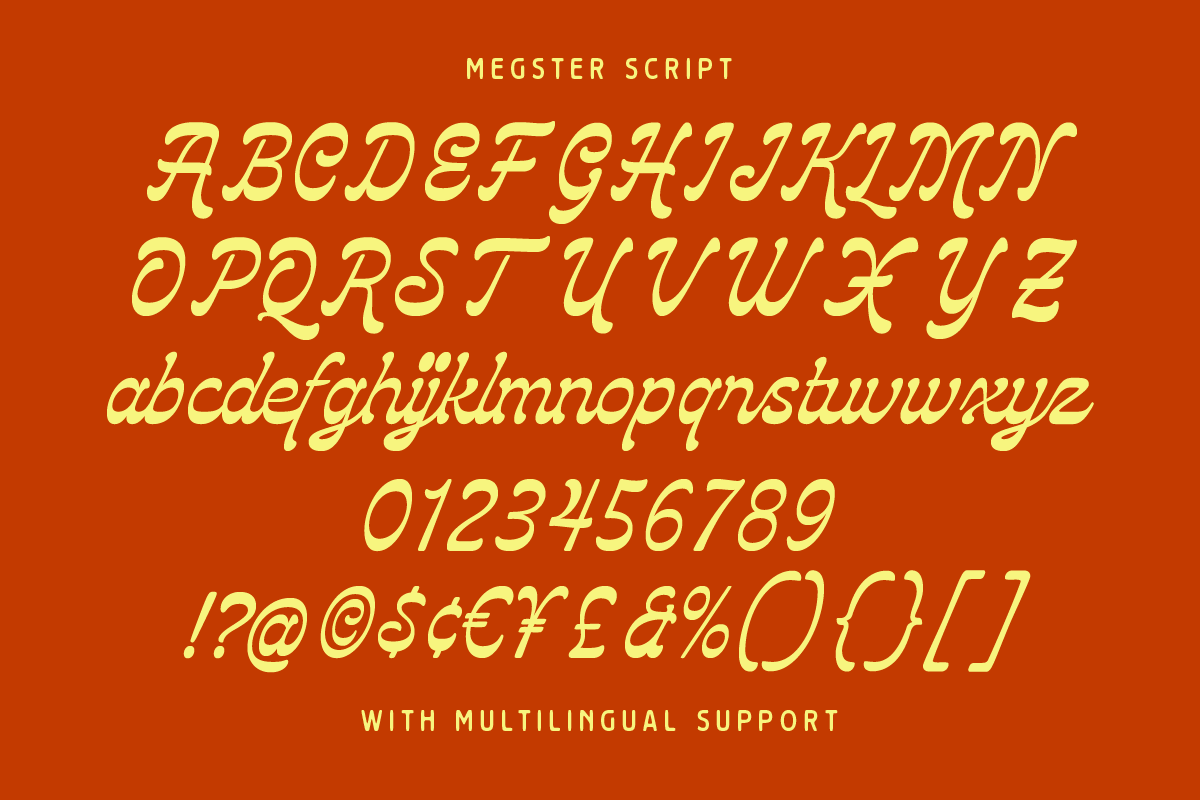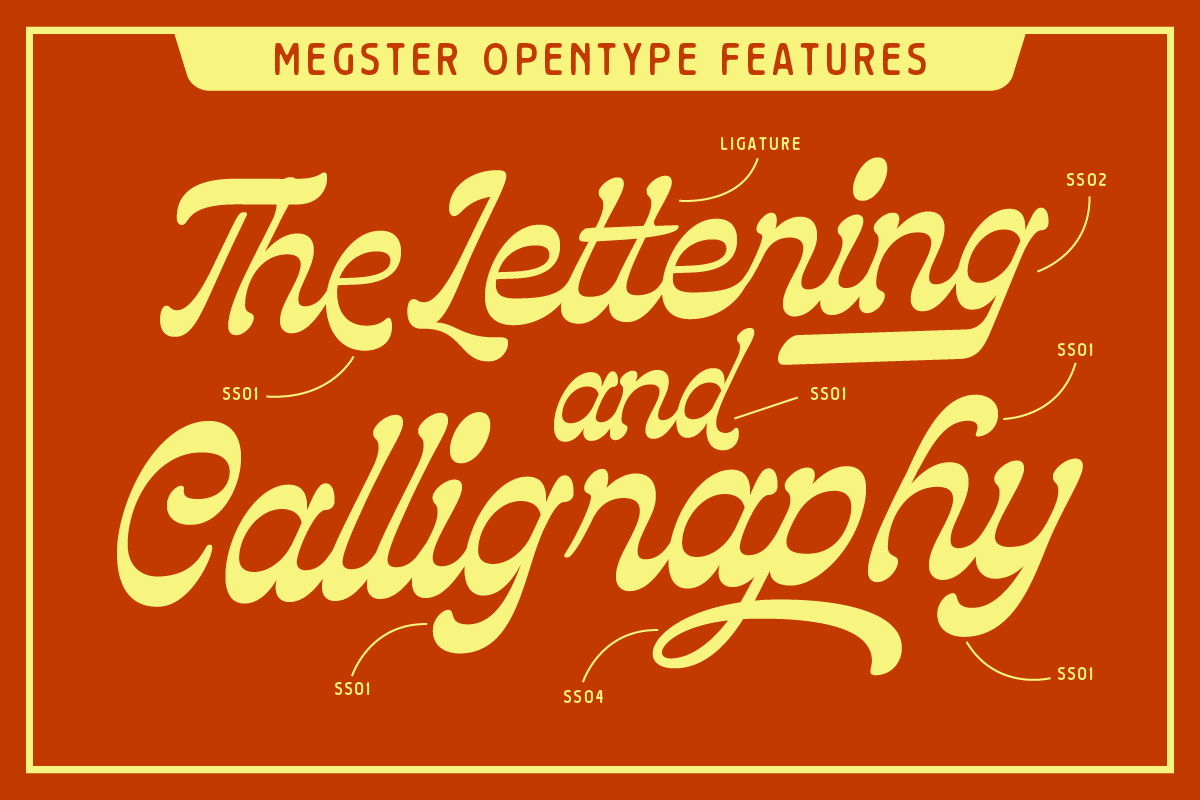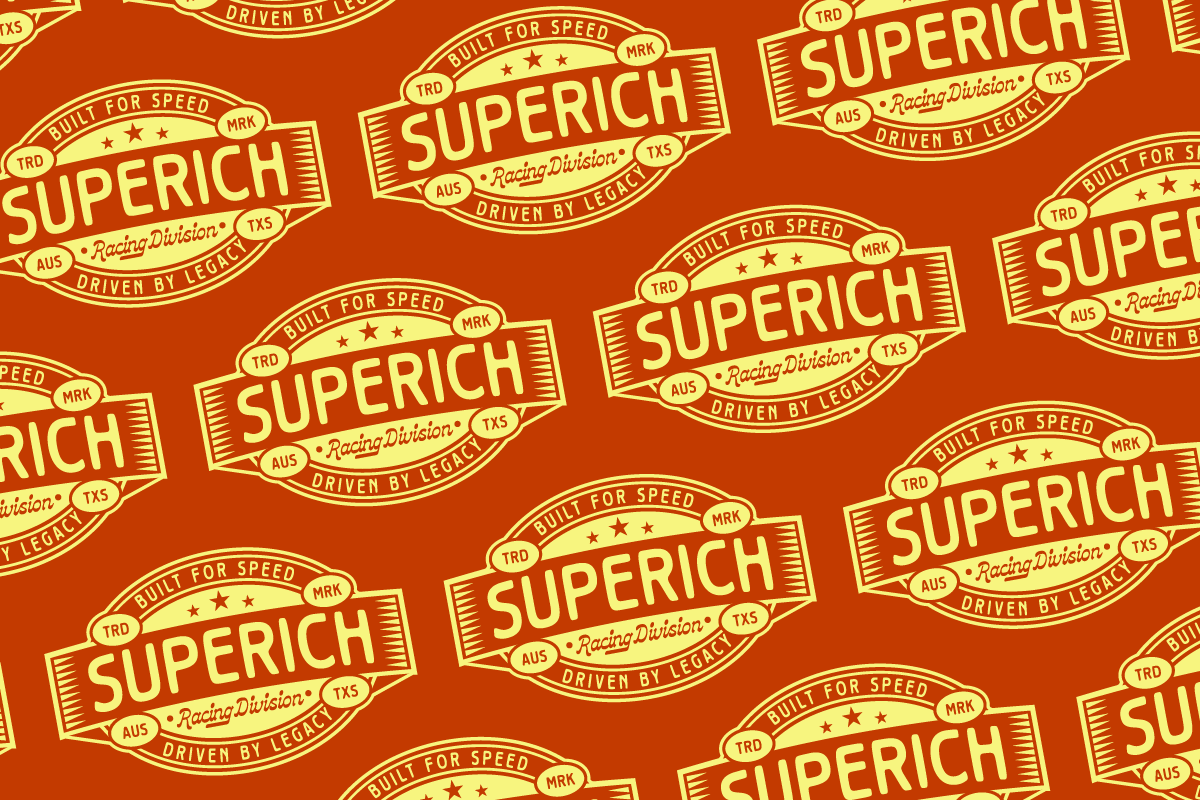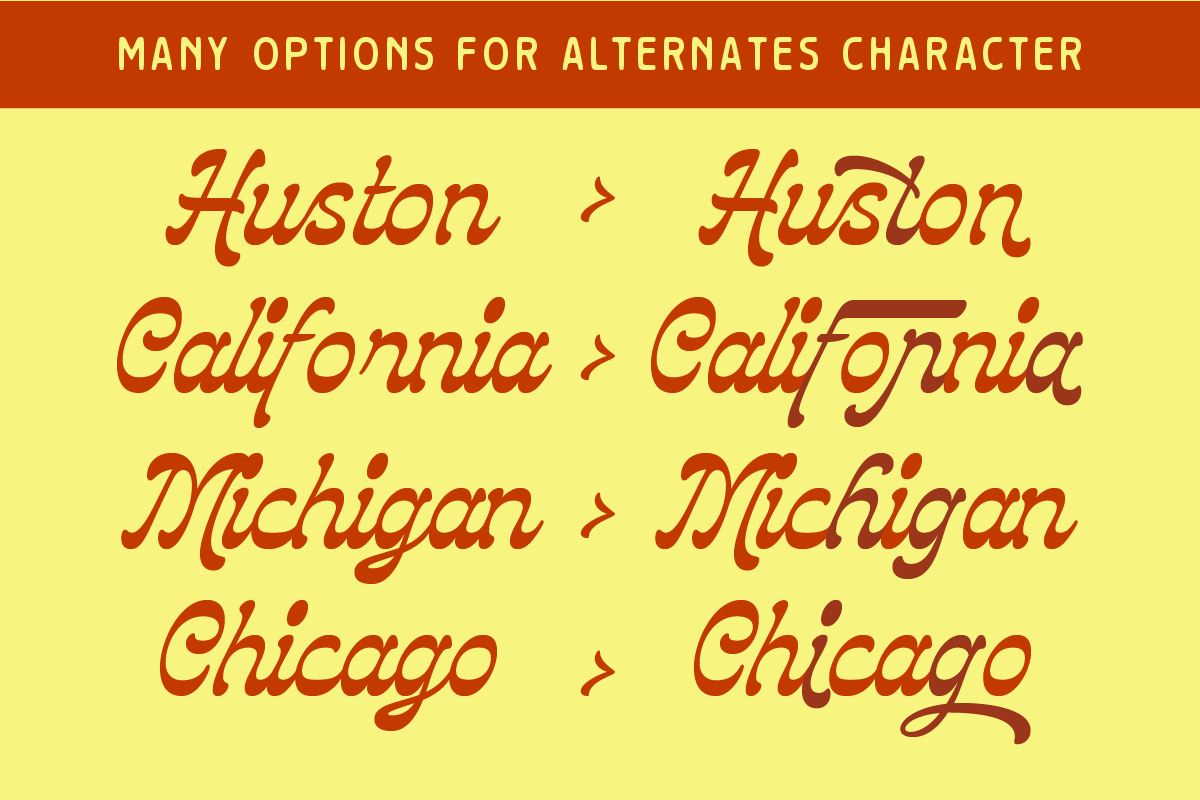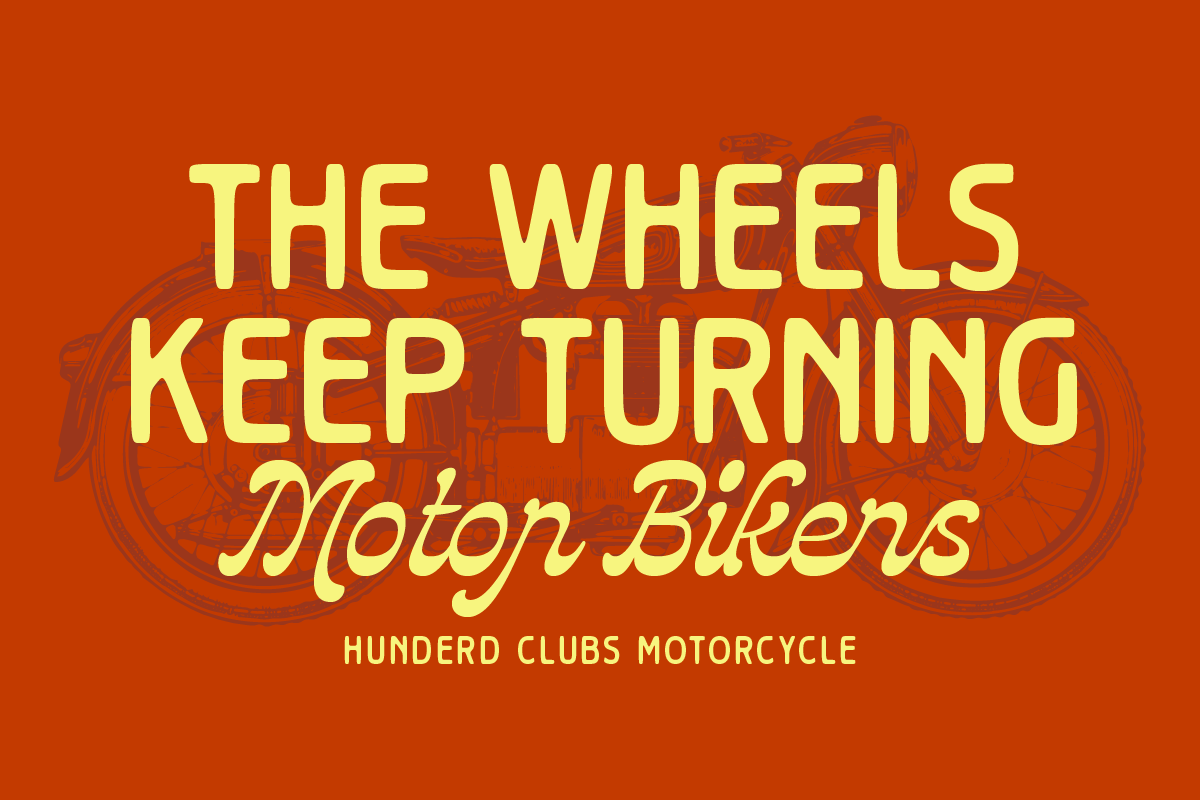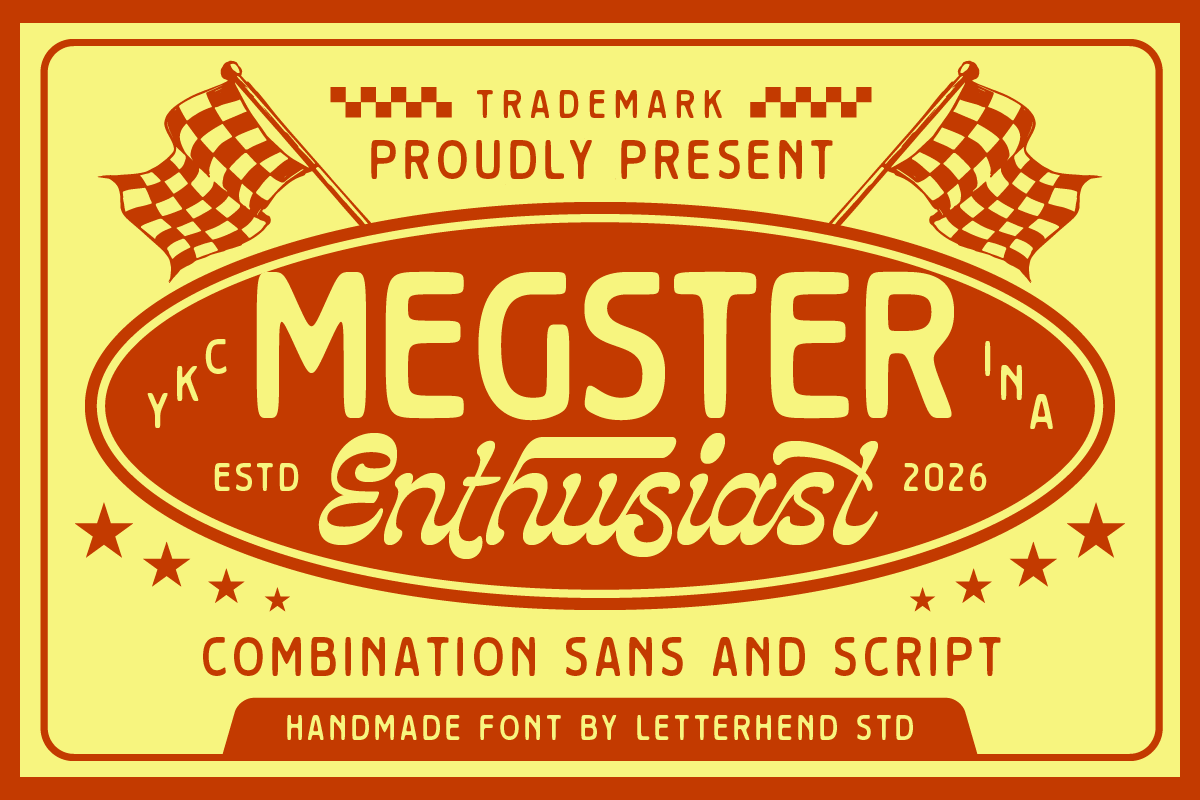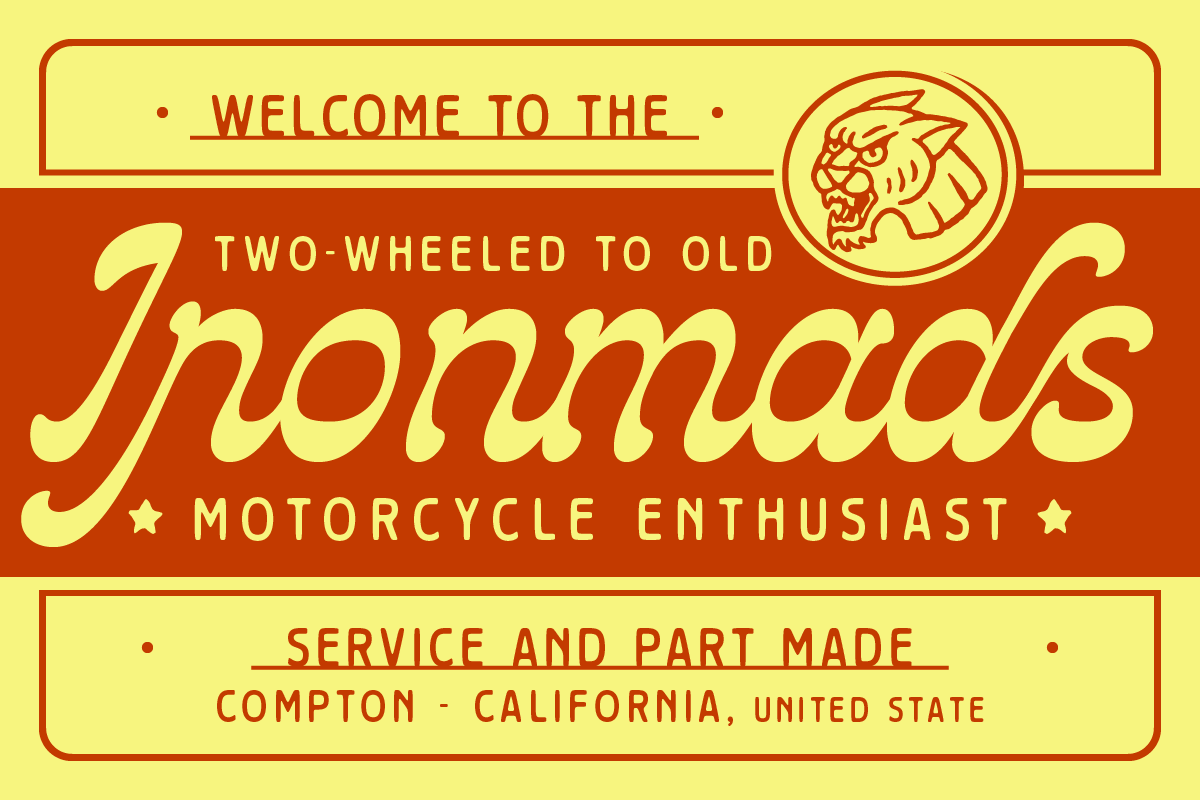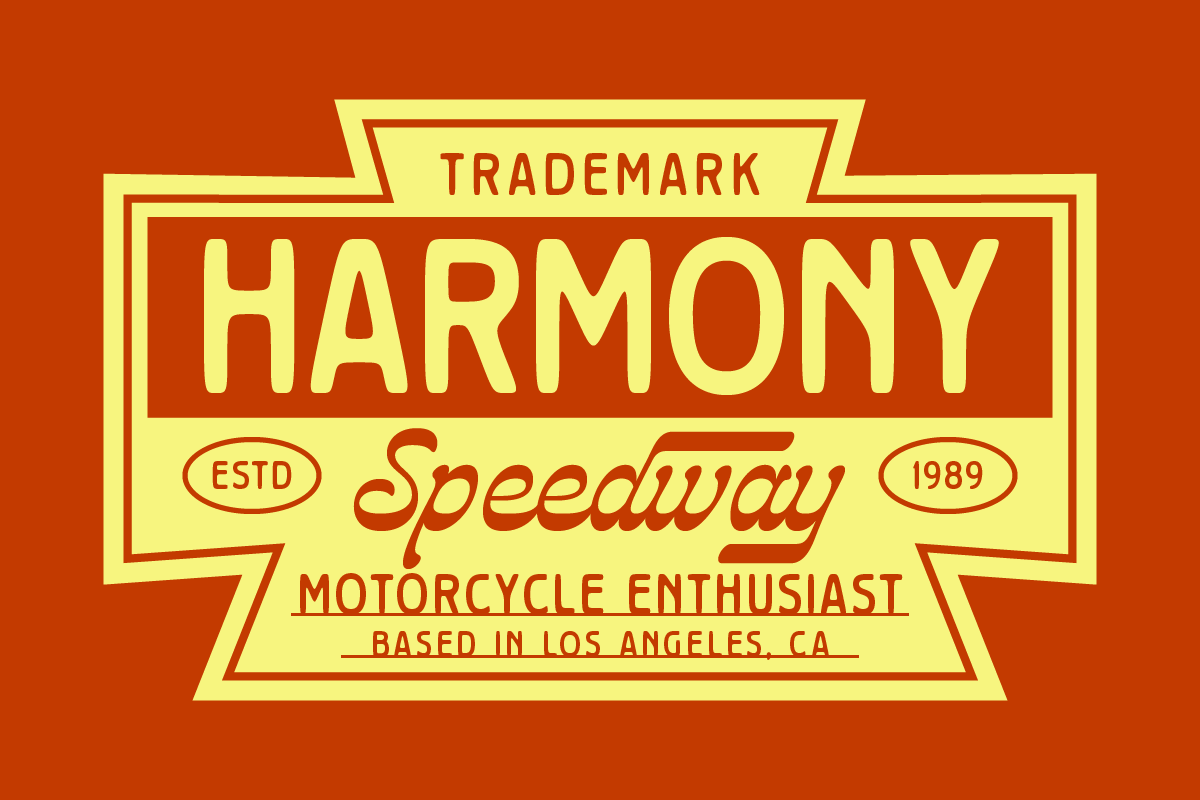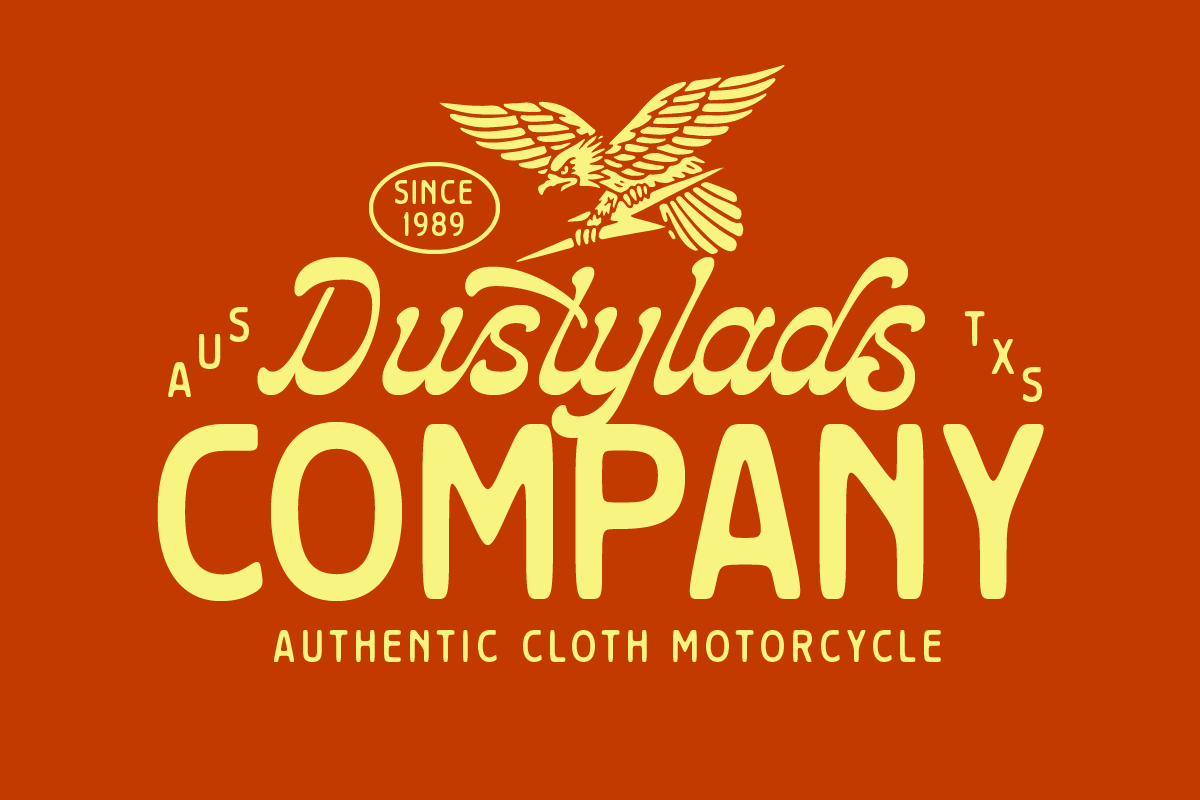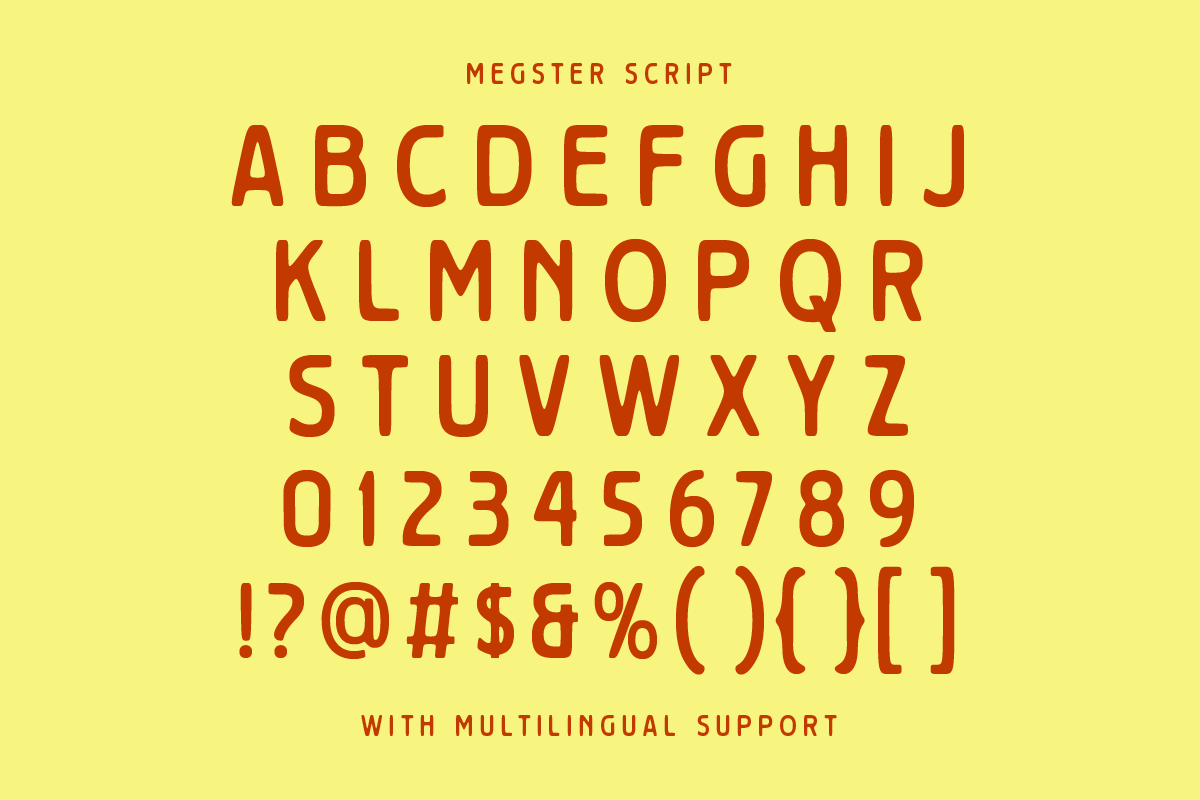
Megster Racing Font Duo
**Megster **feels like a full-throttle ride into vintage racing culture—bold, fun, and packed with character. The combination of a rounded, confident sans and a smooth, energetic script creates a perfect harmony between structure and motion, giving your design that classic badge-style charm.
Uppercase & lowercase
Sans & Script
Numbers and punctuation
Alternates & Ligatures